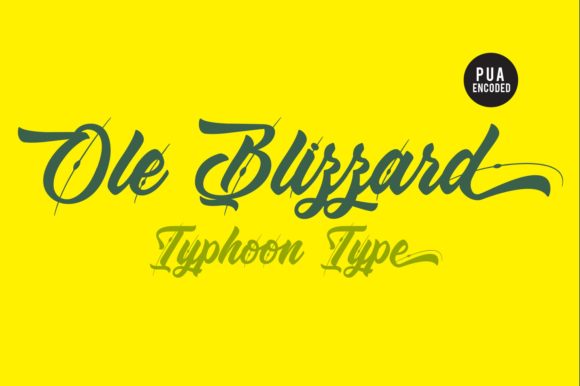
Introduction to Ole Blizzard Font
Have you ever stared at a blank canvas, waiting for inspiration to strike? I’m sure many designers can relate to that feeling of being stuck. But what if I told you that the right font can be the spark that ignites your creative project? For me, it was the moment I discovered the Ole Blizzard Font – a bold, playful handwritten font that adds a unique twist to any design.
As a valuable design resource, the Ole Blizzard Font is perfect for those looking to add a touch of personality to their work. With its high-quality, handwritten feel, it’s no wonder why designers are flocking to this font for their creative projects. And the best part? It’s available for a free download, making it an accessible design tool for anyone.
Whether you’re working on a project with a transparent background or simply need a font to elevate your design, the Ole Blizzard Font is an excellent choice. Its versatility and unique style make it a must-have in any designer’s arsenal, and we’re excited to share its benefits with you in this article.
Key Features of Ole Blizzard Font
- Unique, bold font style with a transparent background, allowing for easy customization.
- Perfect for use in digital designs, such as social media graphics, logos, and advertisements.
- Designed to add a touch of elegance and sophistication to any creative project, making it a valuable design resource.
Honest Review: Ole Blizzard Font
I recently had the chance to experiment with the Ole Blizzard Font, and I must say, it’s a great addition to any designer’s toolkit. The font offers a unique, icy aesthetic that’s perfect for creative projects that need a touch of frostiness.
- What works well: ✨ The Ole Blizzard Font is incredibly versatile and works well in a variety of contexts, from titles and headings to body text. Its transparent background makes it easy to use on images or other design elements.
However, there are a few limitations to consider. ⚠️ The font may not be suitable for all types of projects, particularly those that require a more subtle or neutral aesthetic. Additionally, the high-quality design may not be compatible with all operating systems or software.
Overall, I’m impressed with the Ole Blizzard Font and would recommend it to designers looking for a unique and high-quality design resource. While it may not be perfect for every project, it’s a great addition to any creative arsenal.
Use the Ole Blizzard Font on a transparent background to create a design with depth and dimension. You can also combine the font with other design resources, such as high-quality images and graphics, to create a unique and creative project.
The Ole Blizzard Font is suitable for various design projects, including logos, business cards, and marketing materials. It’s also a great resource for designers who want to create a high-quality design with a free download font.